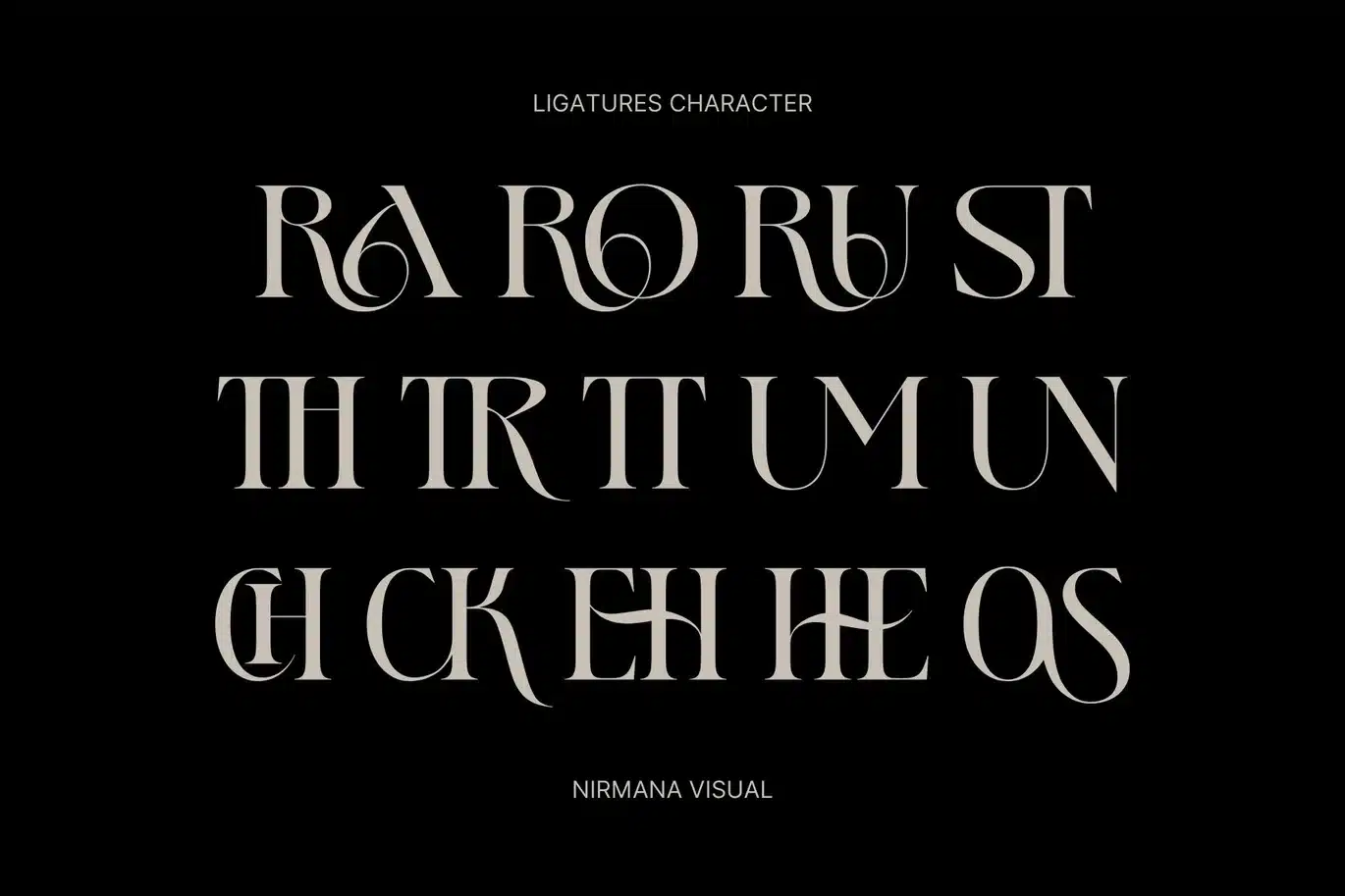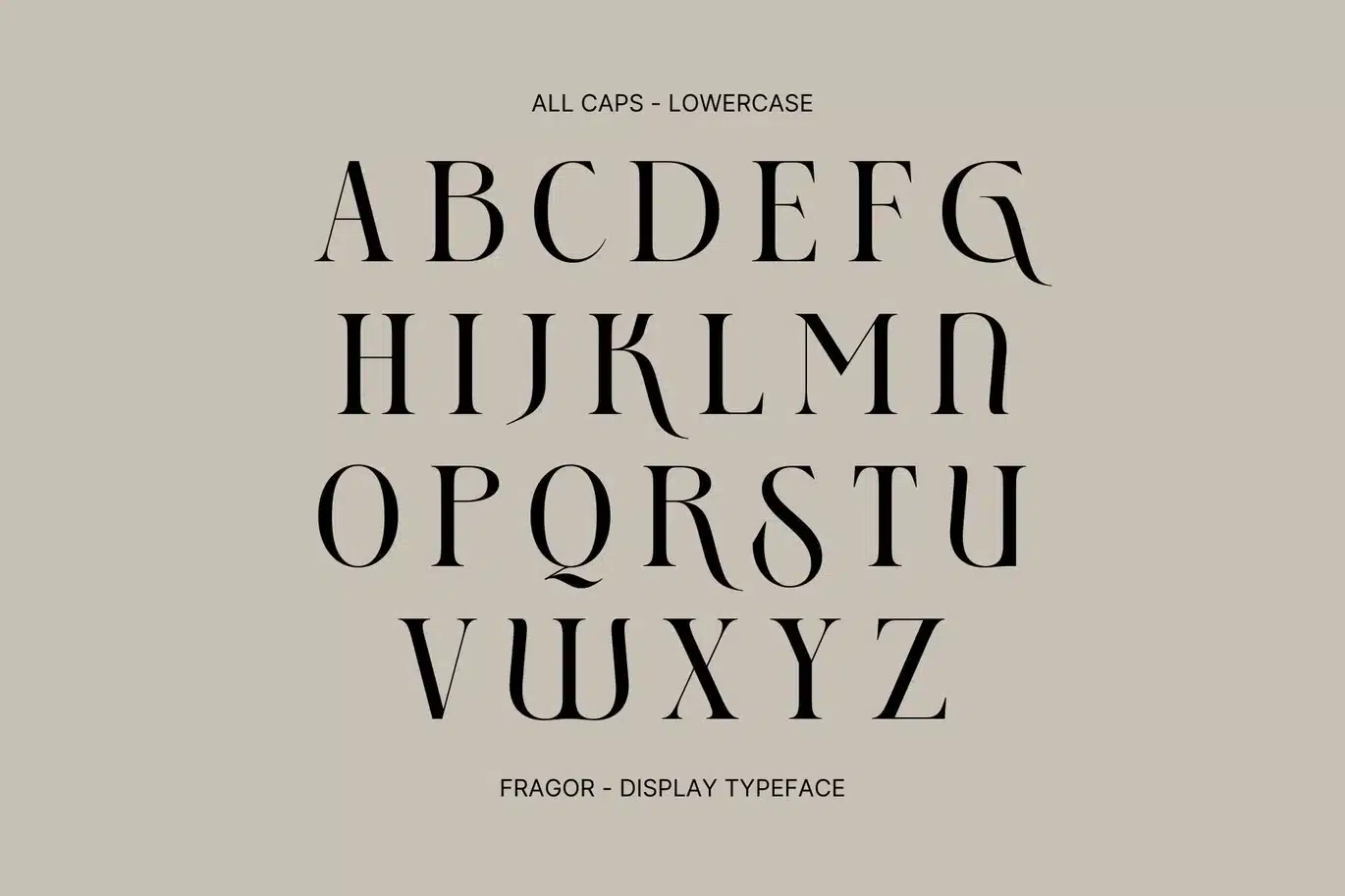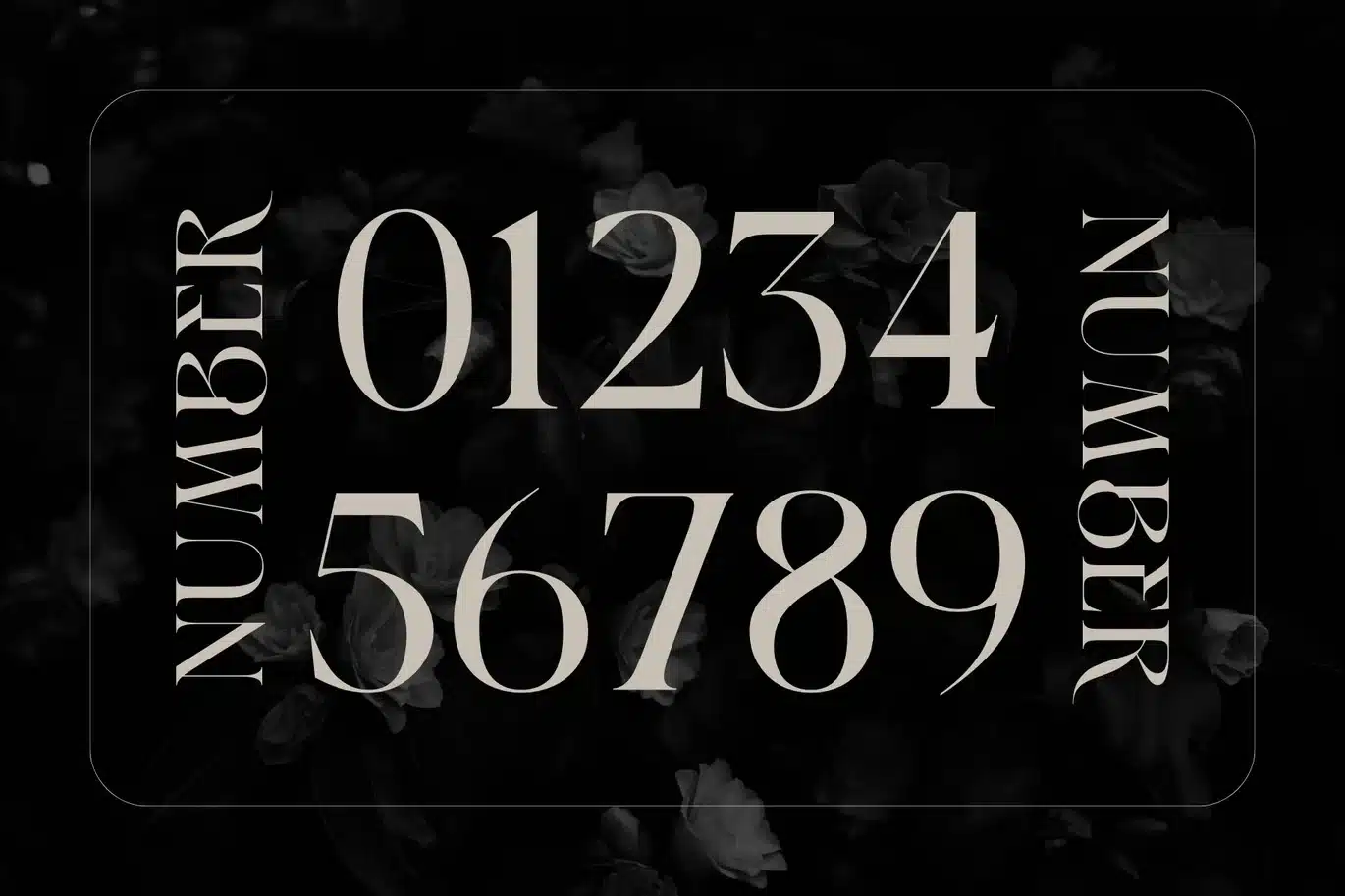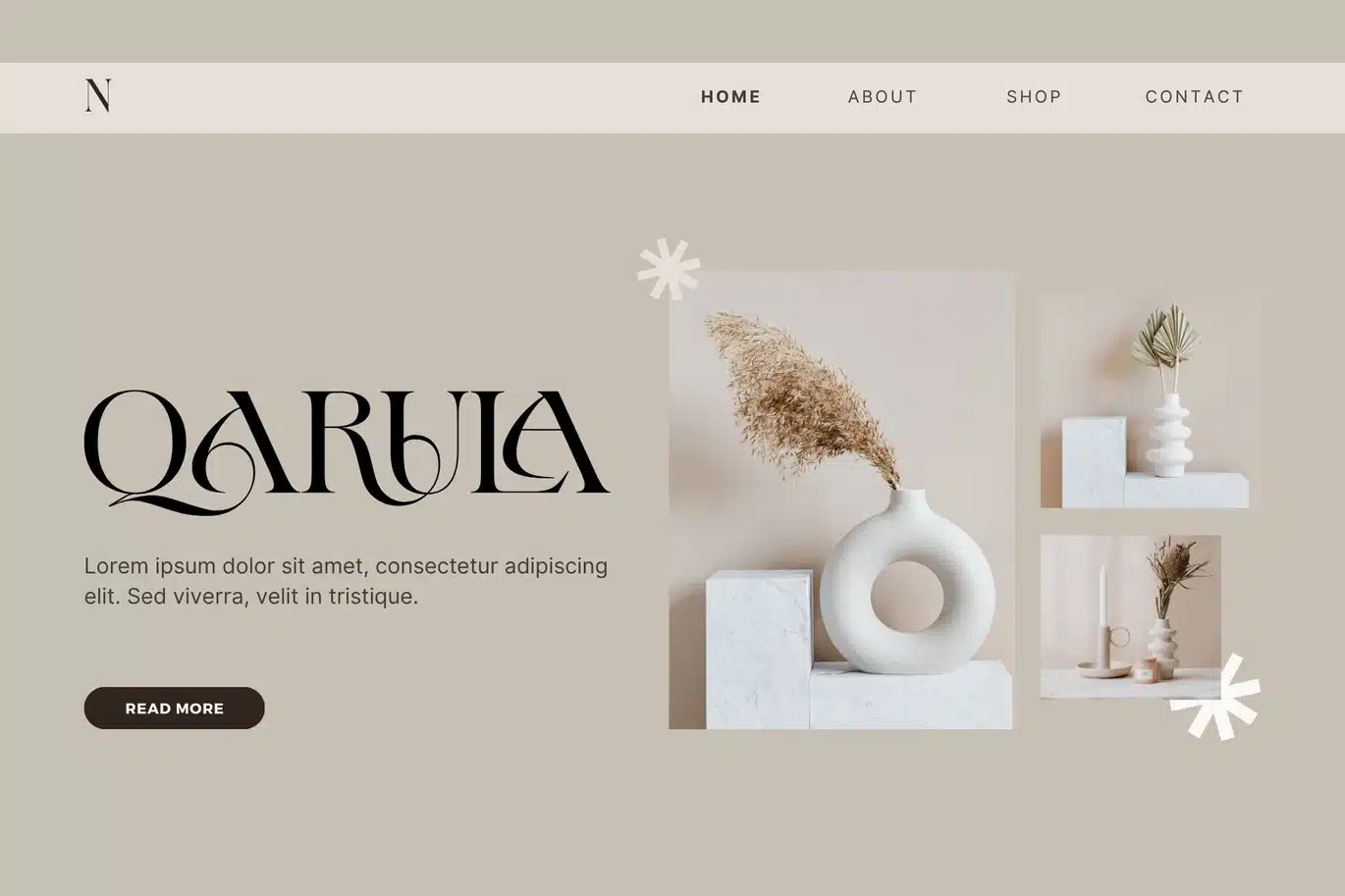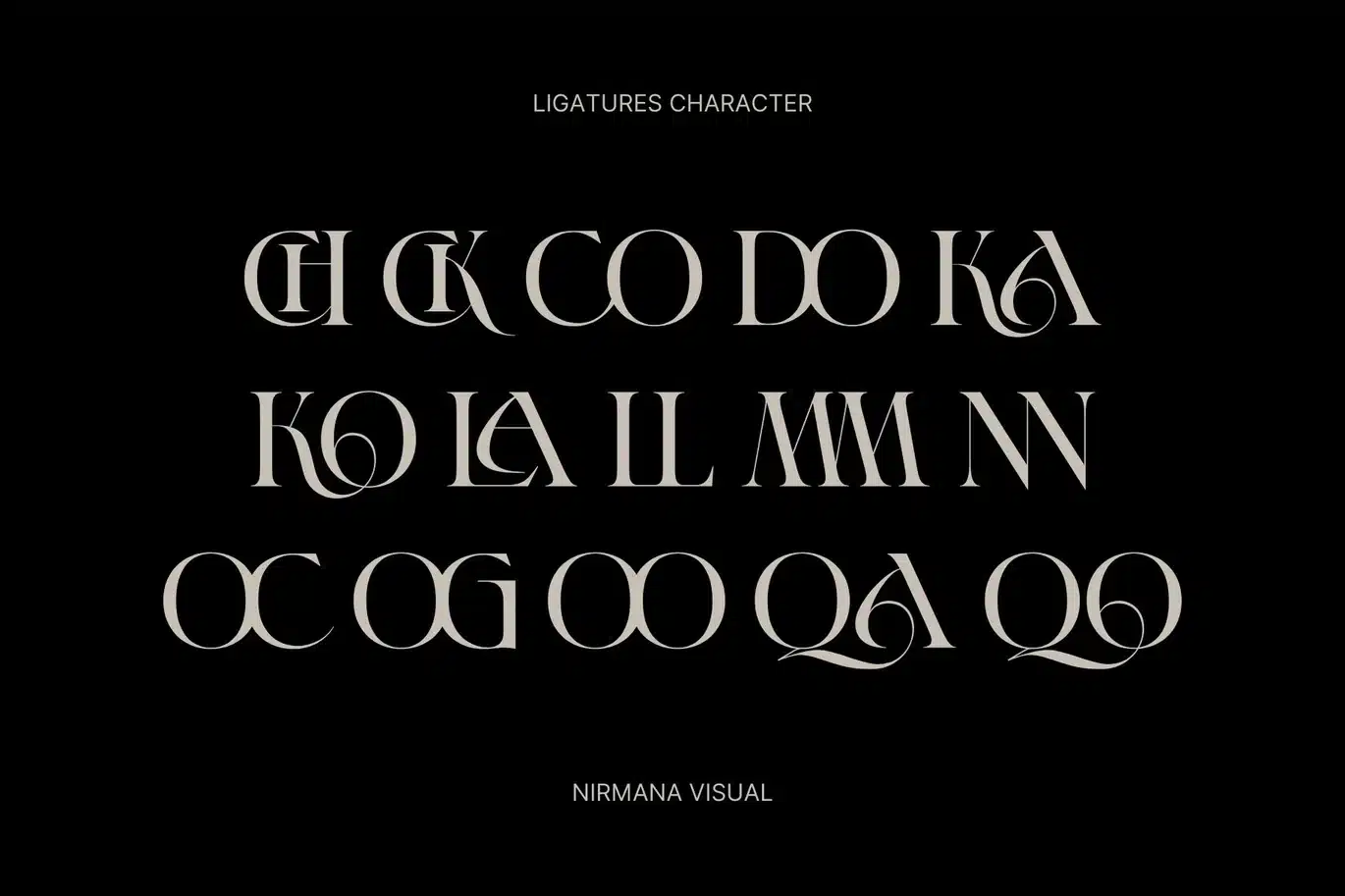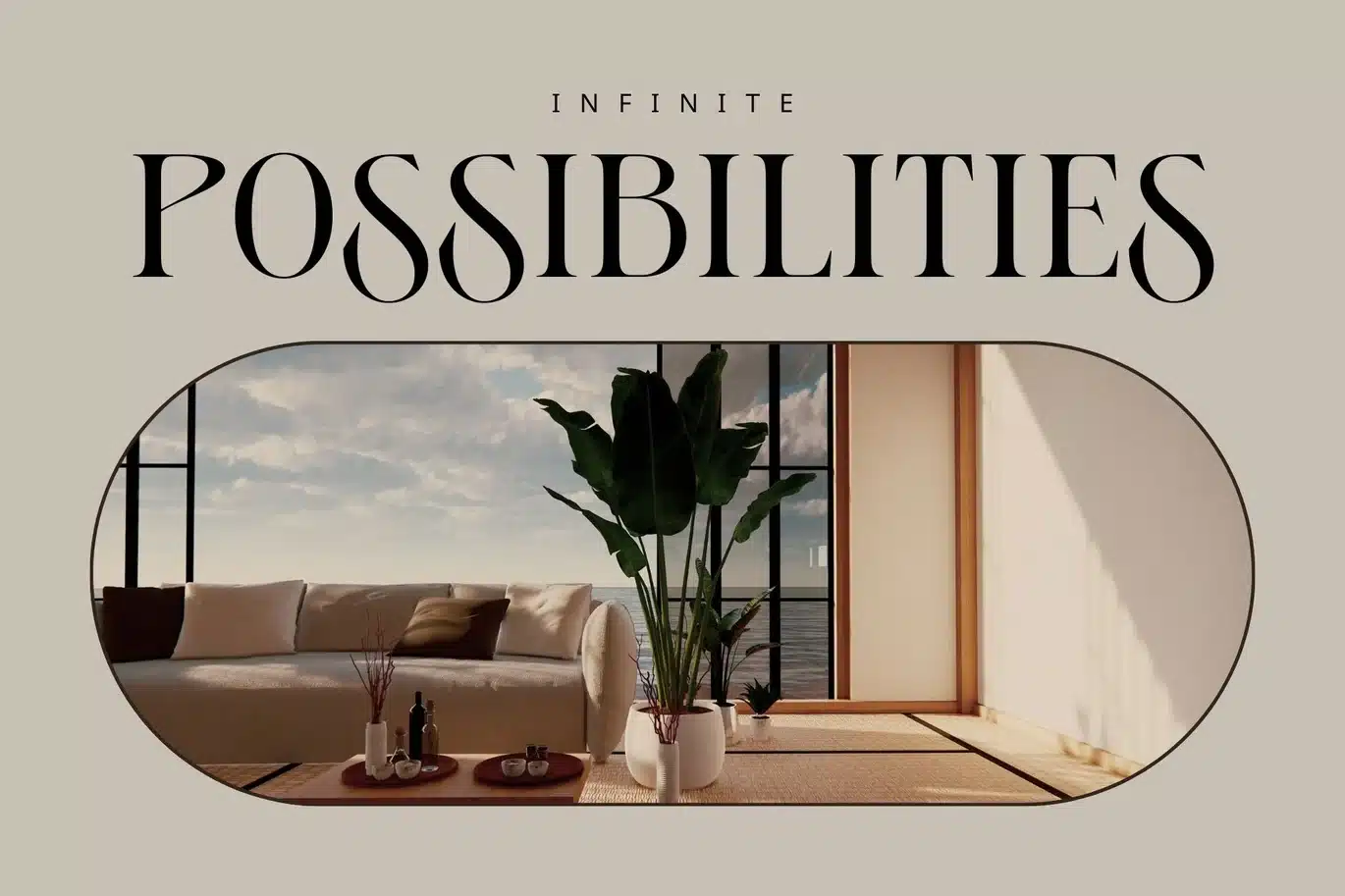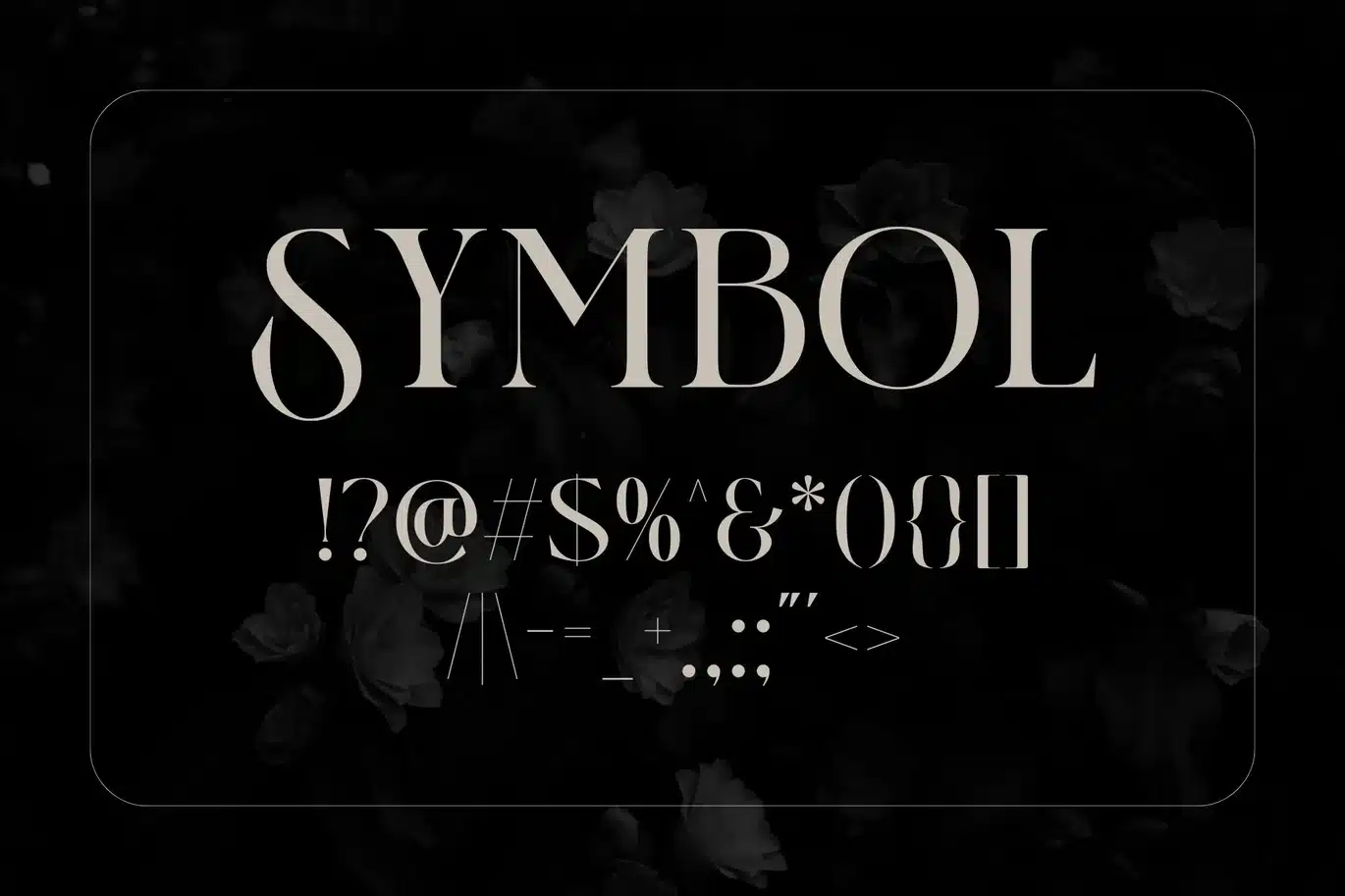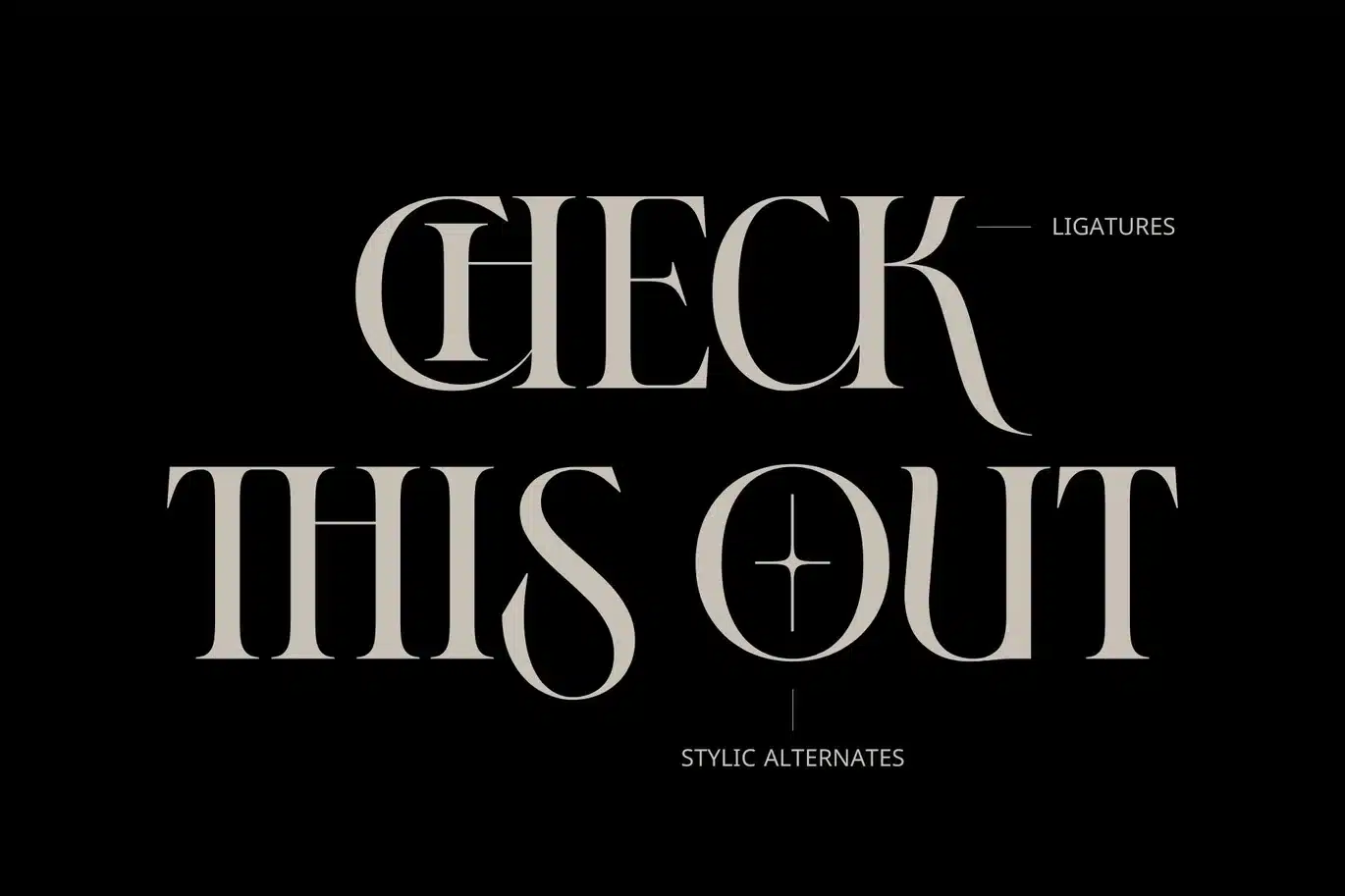
Fragor – Modern Branding Logo Font
Fragor - Modern Font, Serif Display Typeface.
Fragor offers beautiful typographic harmony for a diversity of design projects, including logos & branding, social media posts, advertisements & product designs.